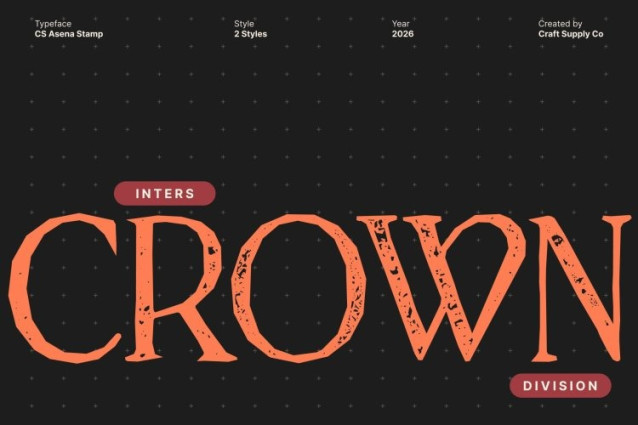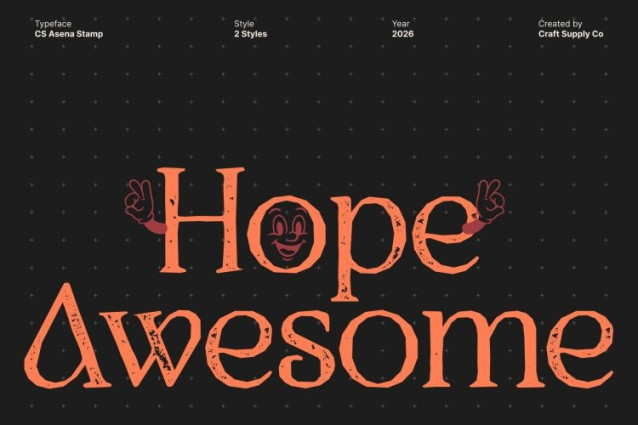
CS Asena Stamp Font
CS Asena Stamp Font This is an elegant serif font crafted to deliver a refined, high-end appearance infused with artistic sophistication. Its graceful curves and carefully sculpted letterforms create a luxurious visual tone that feels timeless yet expressive. Built on classic serif foundations and enhanced with modern stylistic nuances, this font offers a sophisticated typographic voice ideal for premium design projects.
Refined Curves Inspired by Art Nouveau Flow
Inspired by the organic elegance of Art Nouveau, this font features soft, fluid curves and harmonious proportions that echo natural forms and decorative artistry. These refined details introduce a sense of movement and visual richness, creating an ornamental yet balanced design that remains clear and composed.
Stamped Texture with Vintage Character
The stamped style adds a rough, uneven texture that brings warmth, authenticity, and tactile charm to the font. This subtle distressing introduces a vintage feel, enhancing the classic elegance with an artistic, handcrafted impression. The result is a font that feels lived-in, expressive, and full of character without losing its refined structure.
Perfect for Editorial, Fashion, and Authentic Branding
Ideal for premium editorial layouts, fashion visuals, packaging, posters, labels, and high-end branding, elevates every project with elegance and authenticity. Its combination of artistic curves and stamped texture makes it especially suitable for designs that seek a classic, luxurious, and genuinely expressive feel.